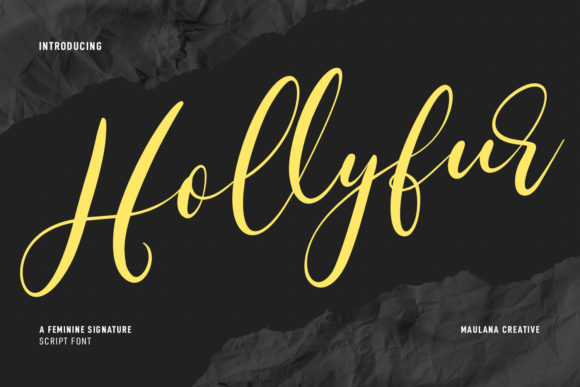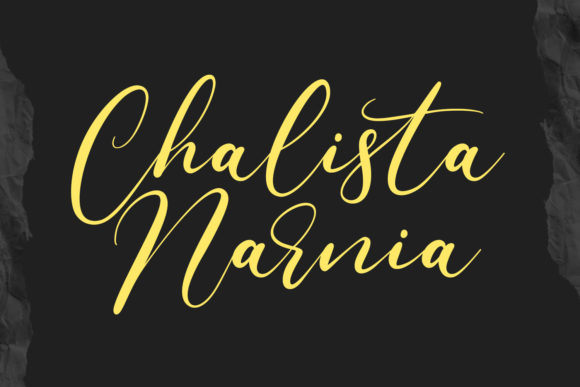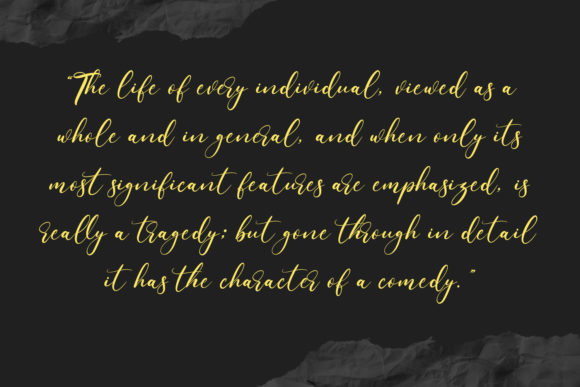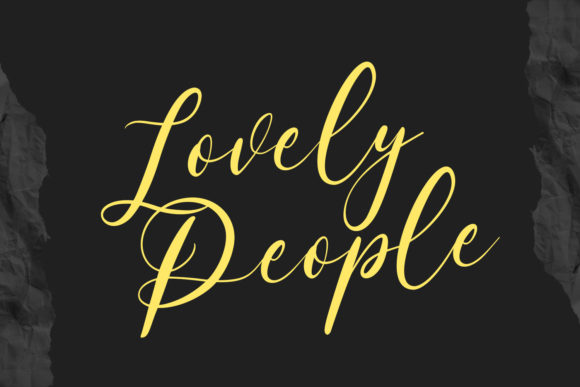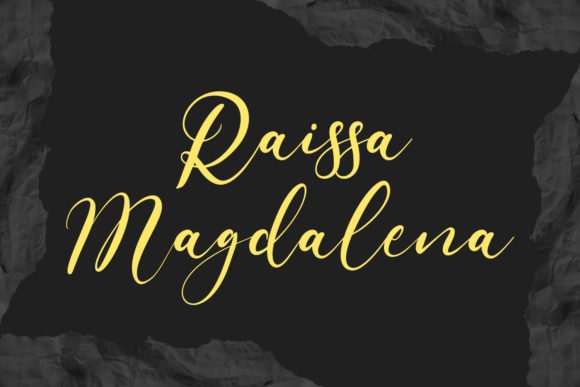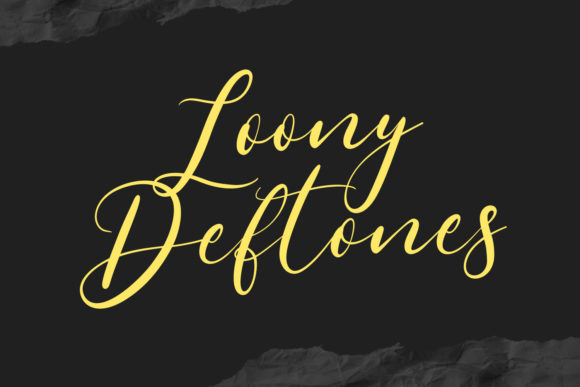
Hollyfur Script Font
About Hollyfur Script Font
Hollyfur is a cursive, beautiful, and feminine script font. With high contrast stroke, fun character with a bit of ligature and alternates to give you extra creative work. This font is good for logo design, Social media, Movie Titles, Books Titles, short text, even long text. Make stunning work with Hollyfur font!